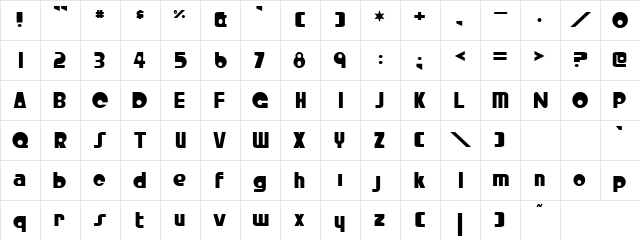
Bald Buety Regular
Design Context for Bald Buety Typeface
Bald Buety is a composed and adaptable typeface that performs quietly and consistently across a wide range of design contexts.